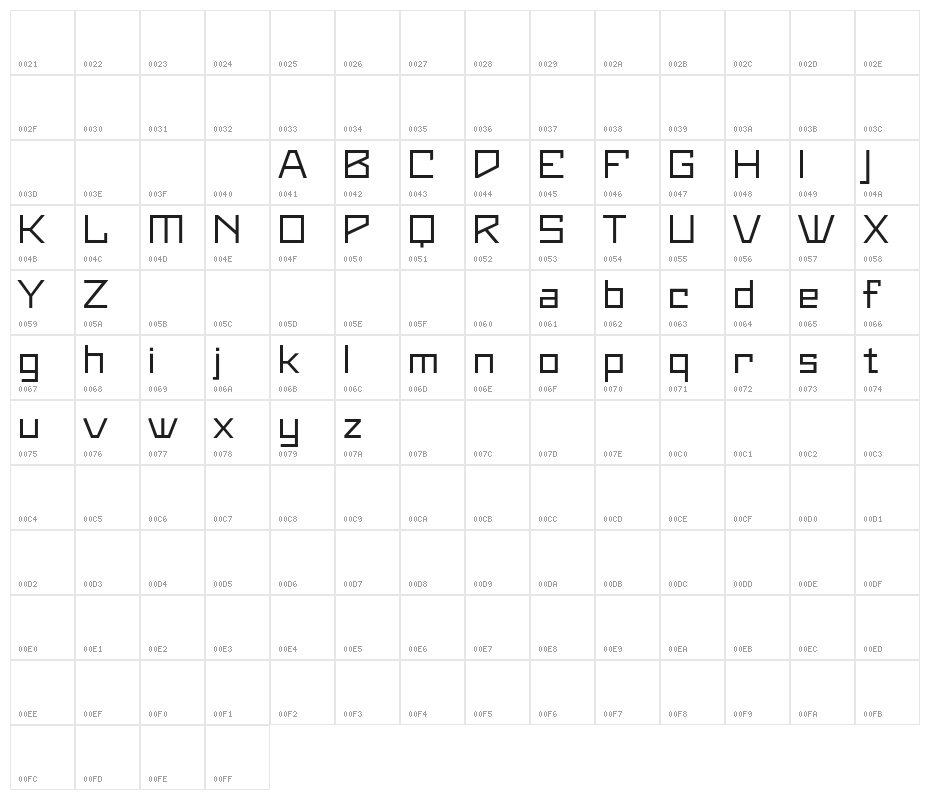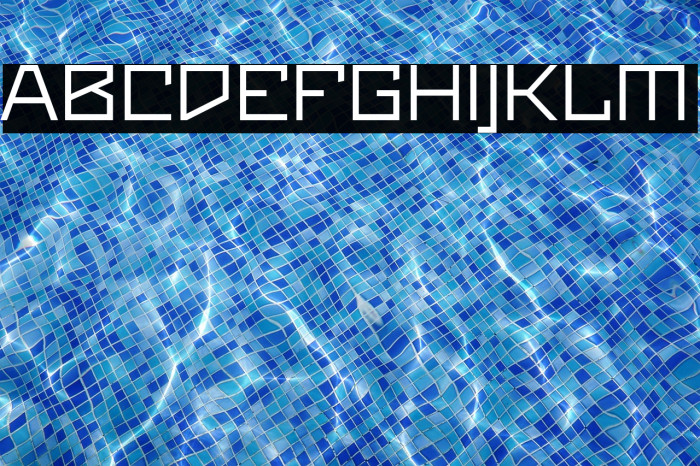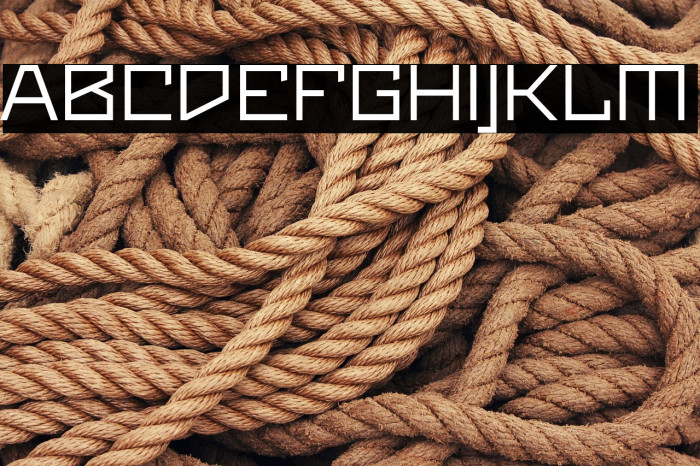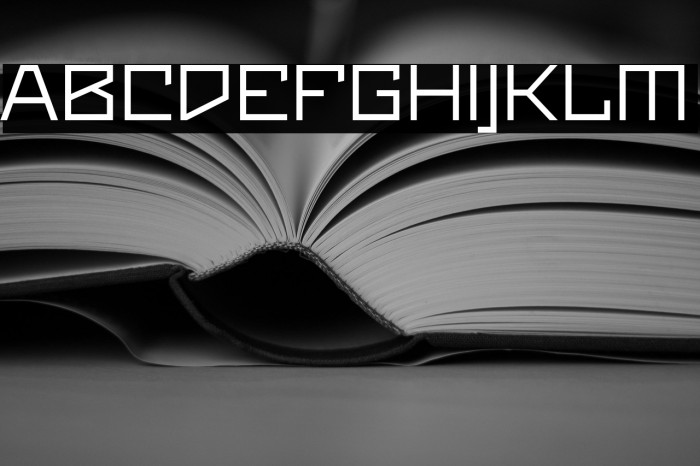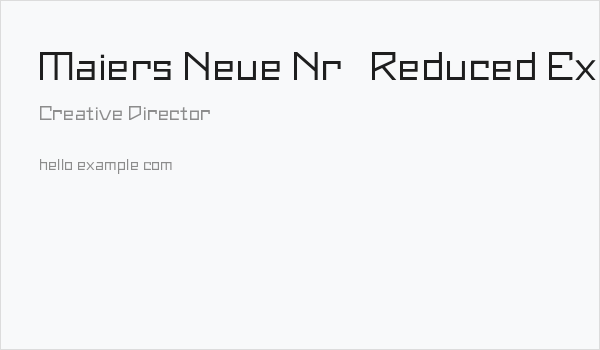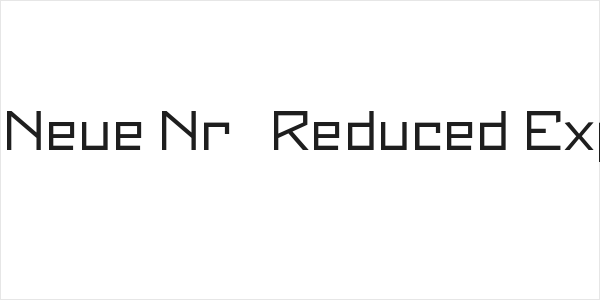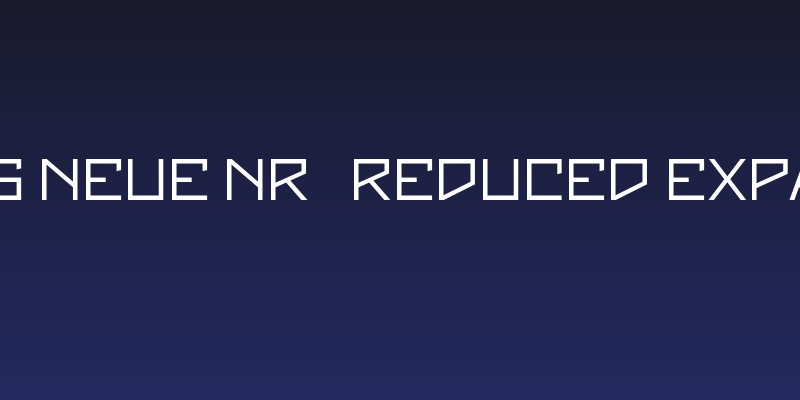
Maiers Neue Nr.8 Reduced Expanded Font
Maiers Neue Nr.8 Reduced Expanded Description
This font features a geometric and modern design with a distinct angular style. The characters are constructed with straight lines and sharp corners, giving it a futuristic and technical appearance. The uppercase letters are uniform in height, while the lowercase letters maintain a consistent baseline with slight variations in height for certain characters like 't' and 'f'. The font has a clean and minimalistic look, with a focus on clarity and precision. The spacing between characters is balanced, ensuring readability while maintaining its unique aesthetic.
| Overall Style | Modern, Technical |
| Use Case | Logos, Headlines, Digital Interfaces |
| Proposed Projects | Ideal for technology branding, modern posters, digital interfaces, and architectural designs. |